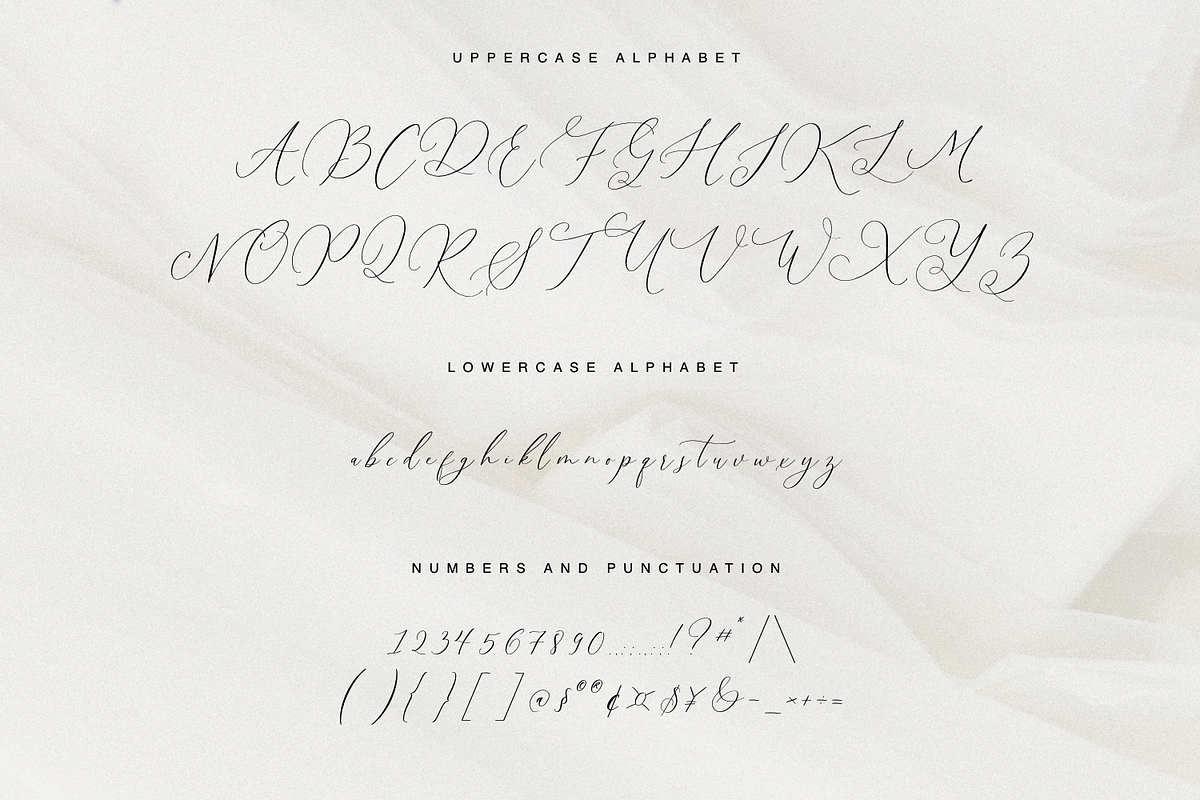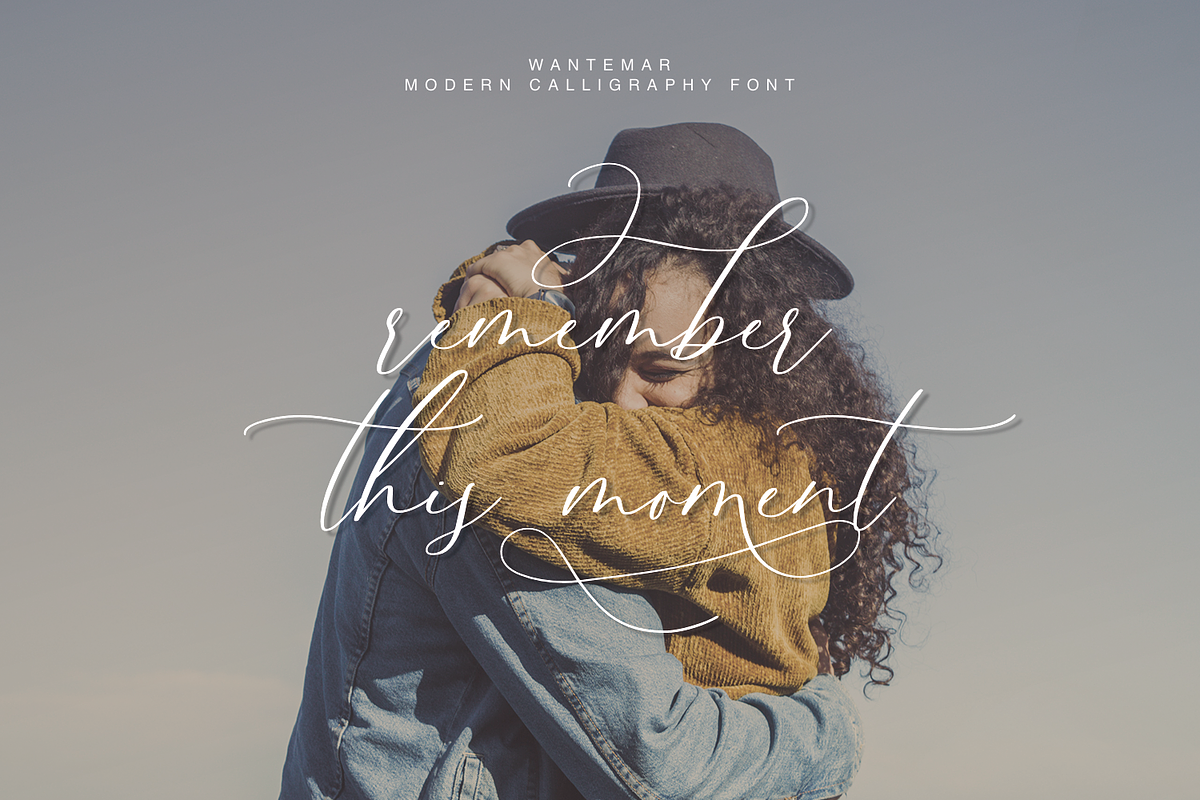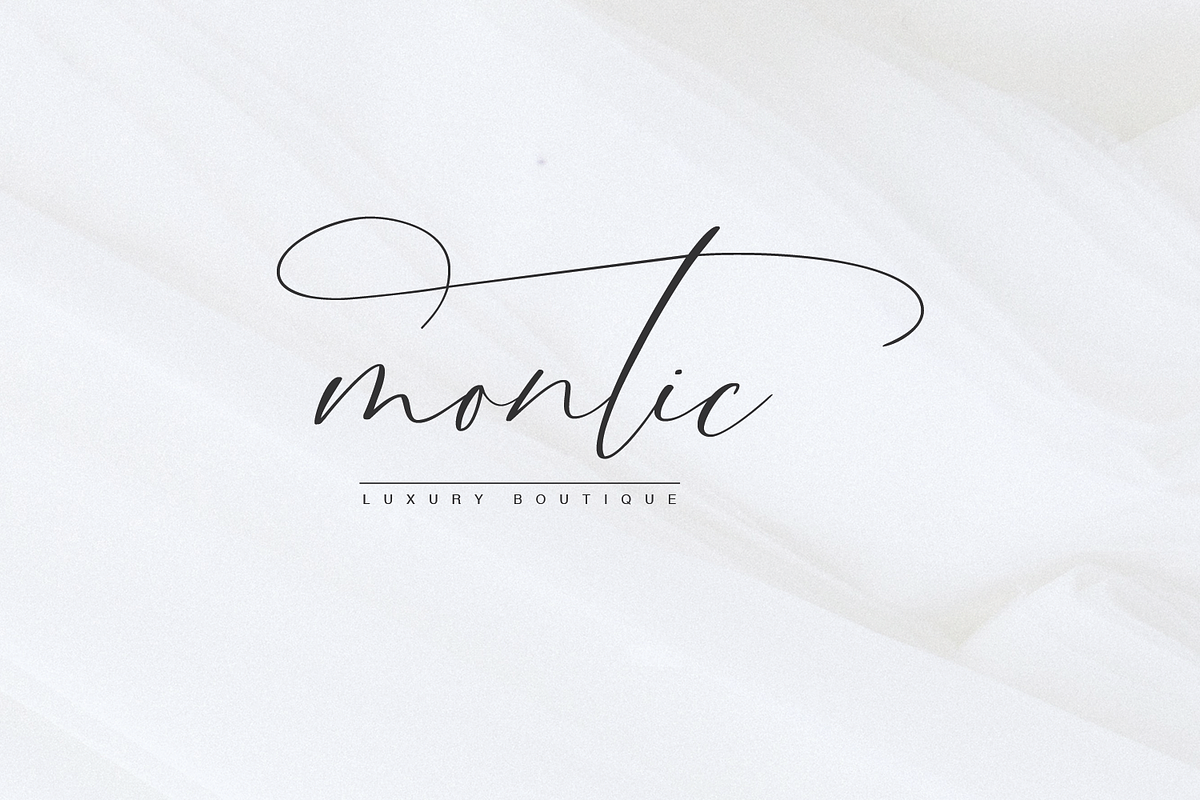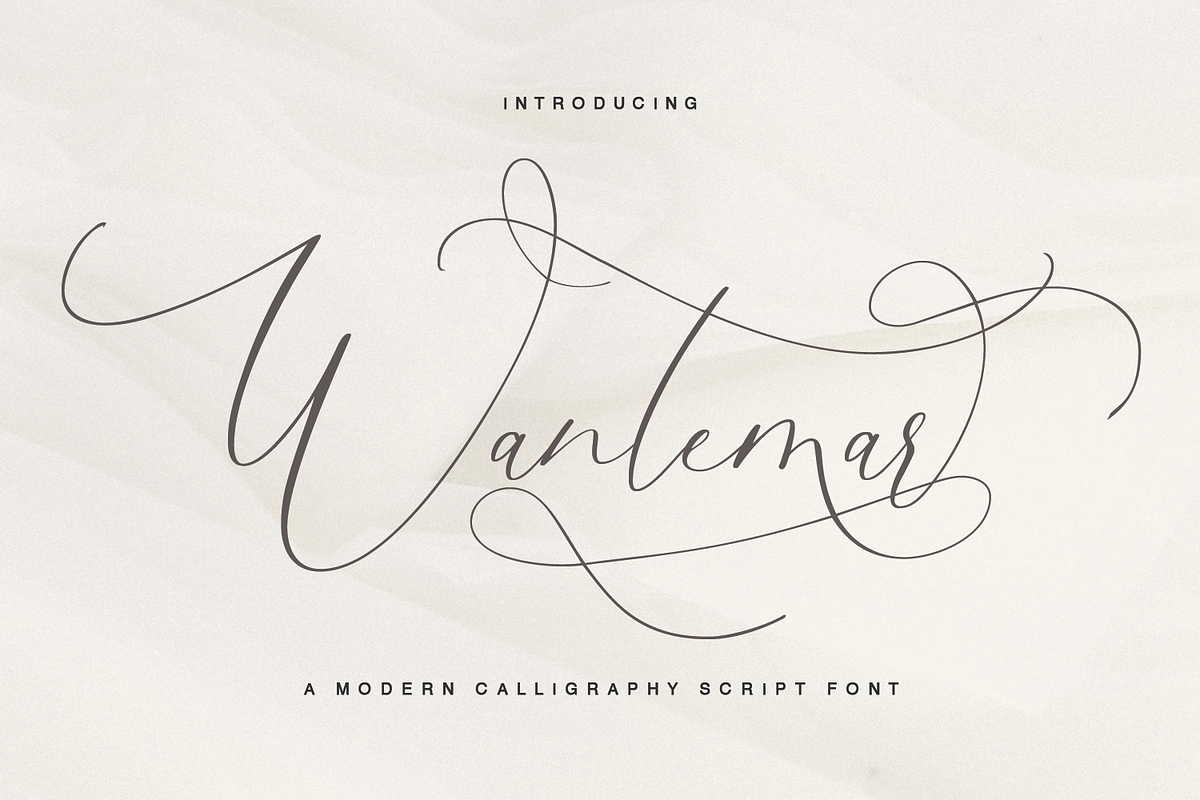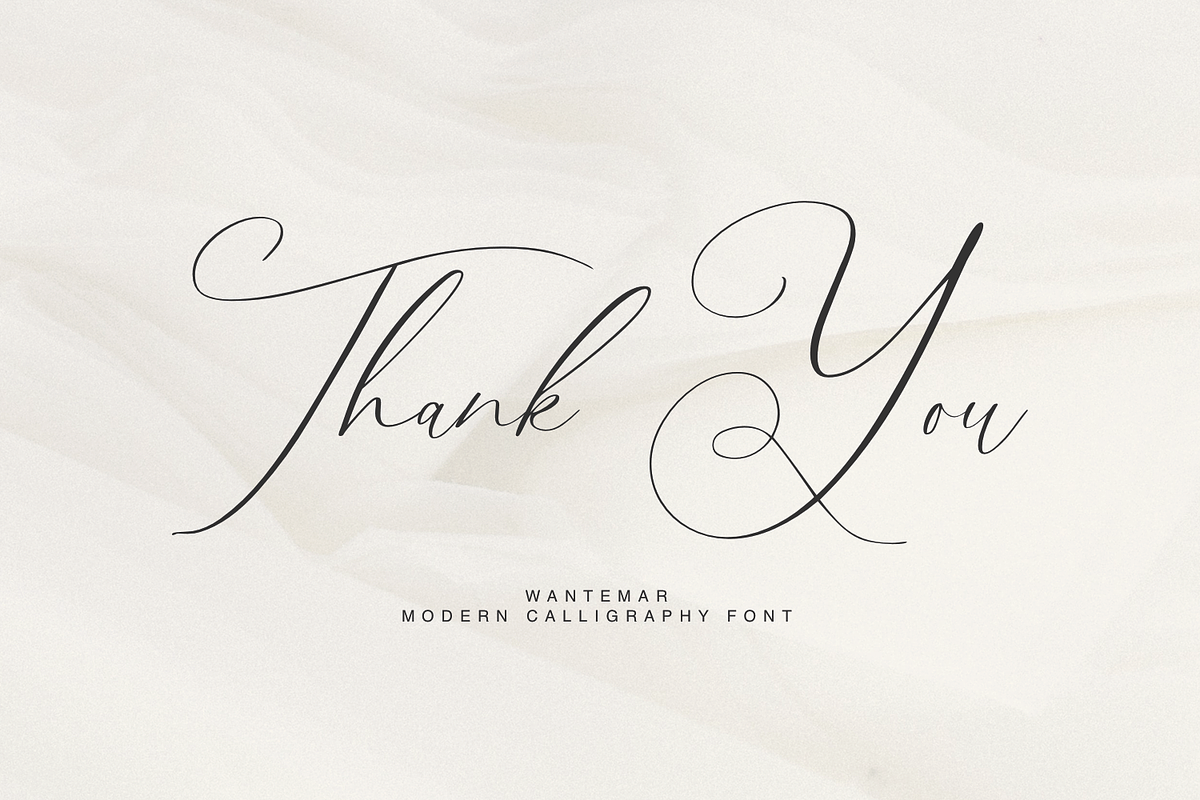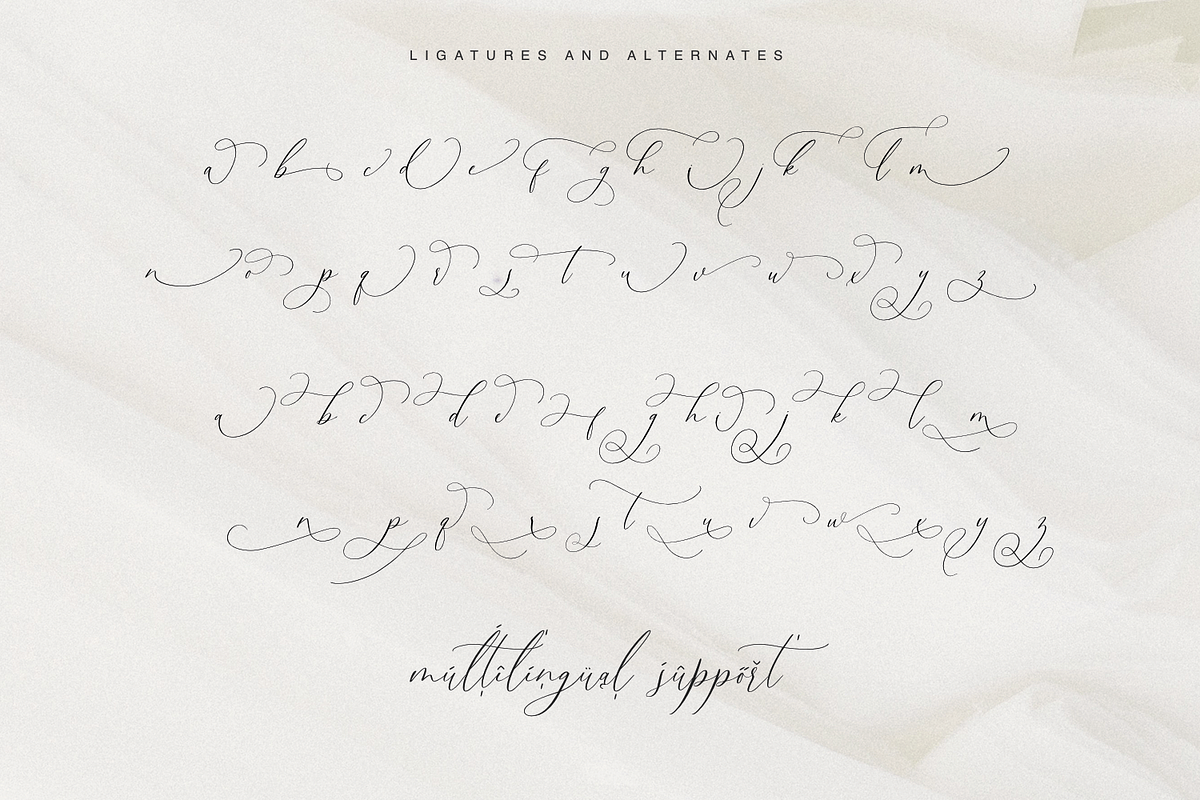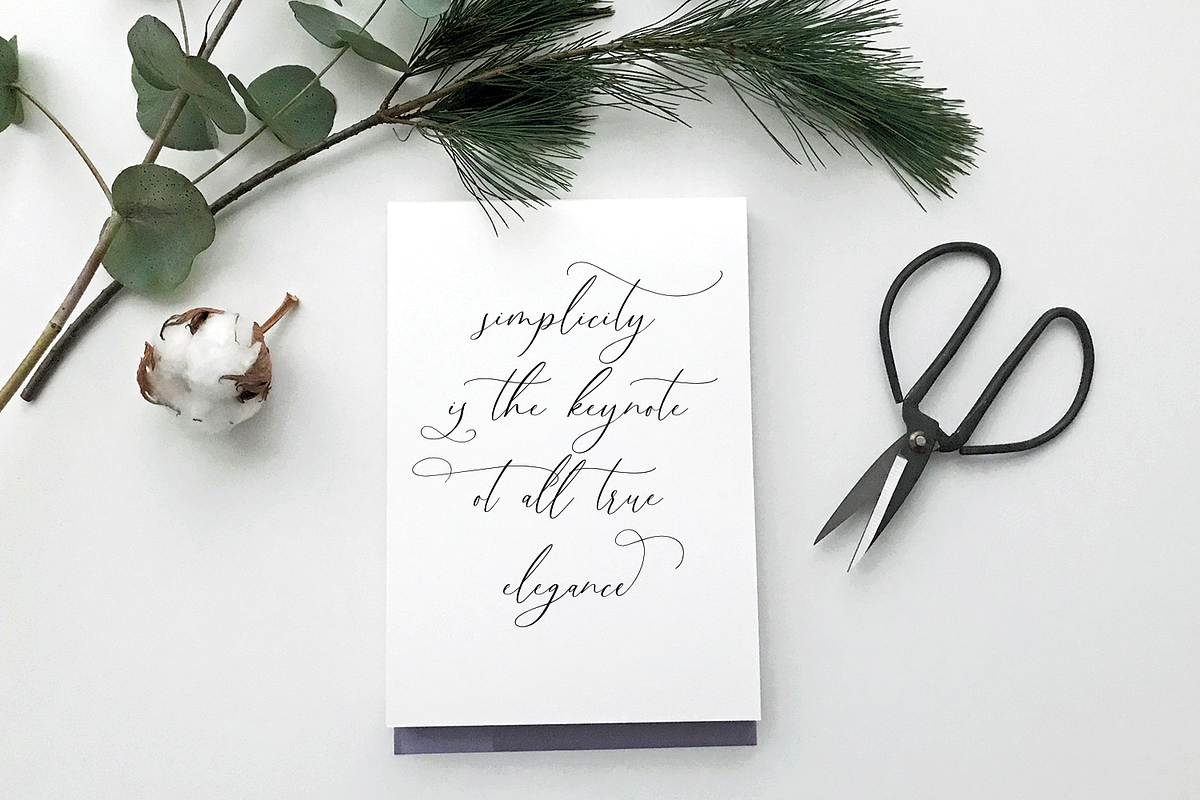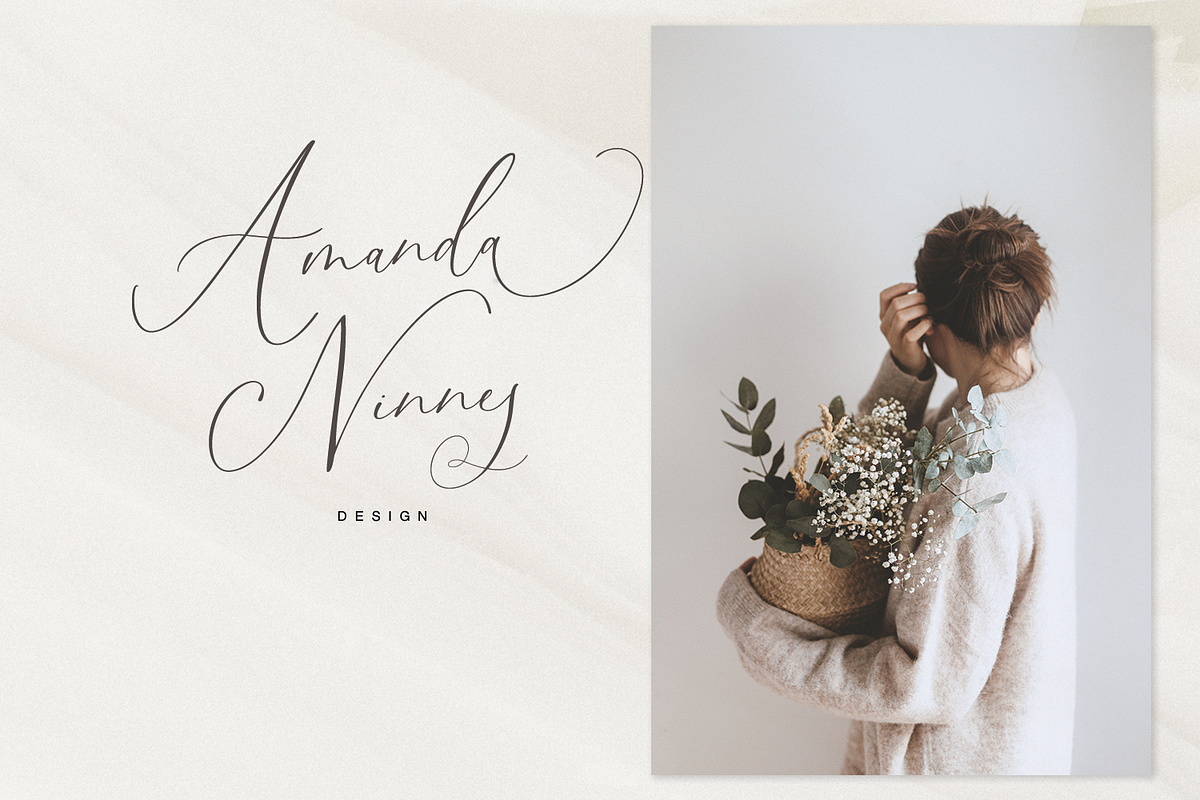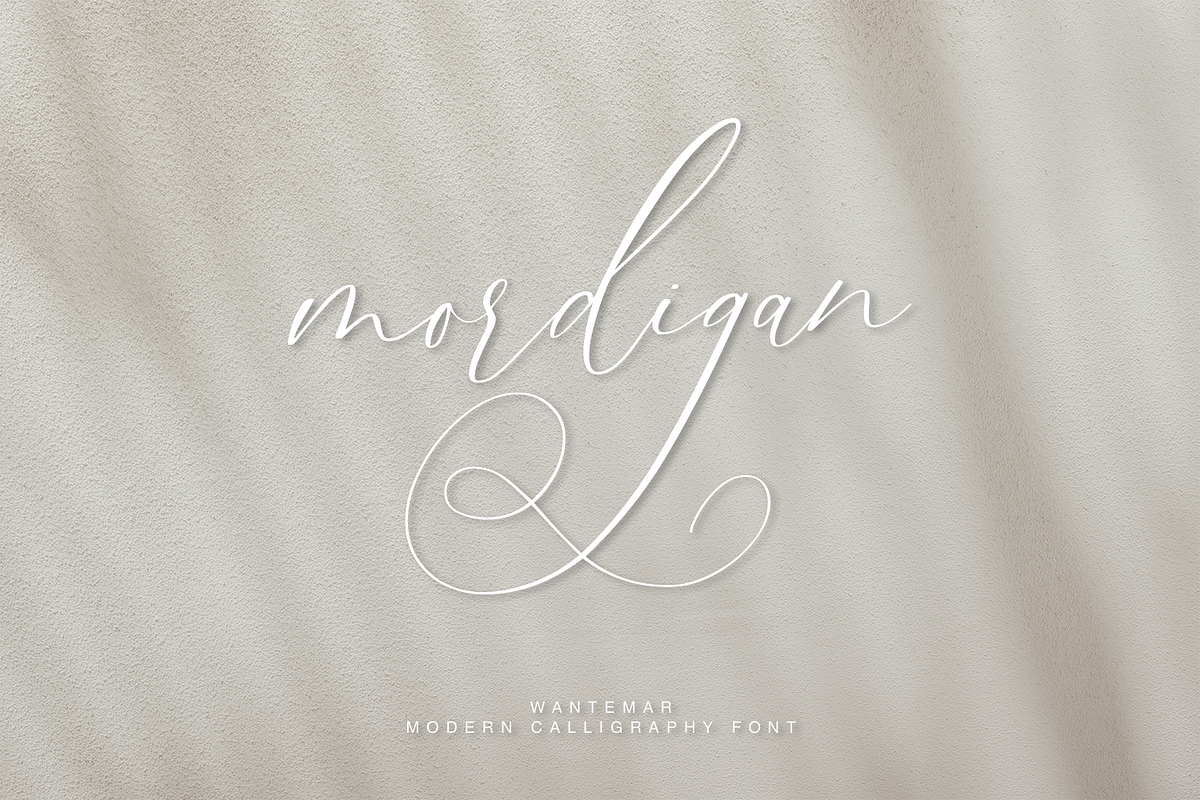
Wantemar - modern calligraphy font
Wantemar - a new fresh handmade calligraphy font.
Very suitable for greeting cards, branding materials, business cards, quotes, posters, and more!This font are perfect for wedding postcard. Or you can create perfect and unique design of your logo, blog, stationery, marketing, magazines and more :)
Ligatures , Alternates Multilingual characters (AÀÁÂÃÄÅCÇDÐEÈÉÊËIÌÍÎÏNÑOØÒÓÔÕÖUÙÜÚÛWYÝŸŸ ÆŒßÞàáâãäåæçèéêëìíîïðñòóôõöøùúûüýÿ)